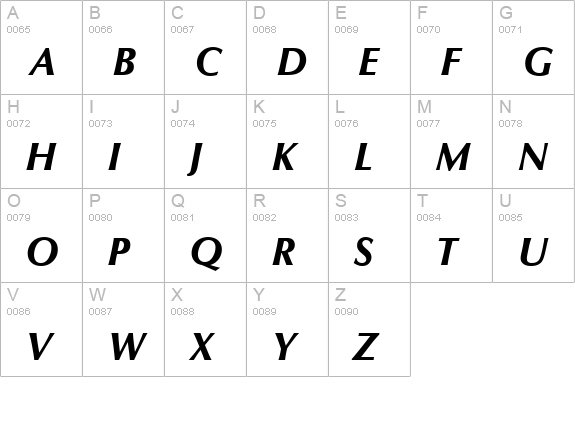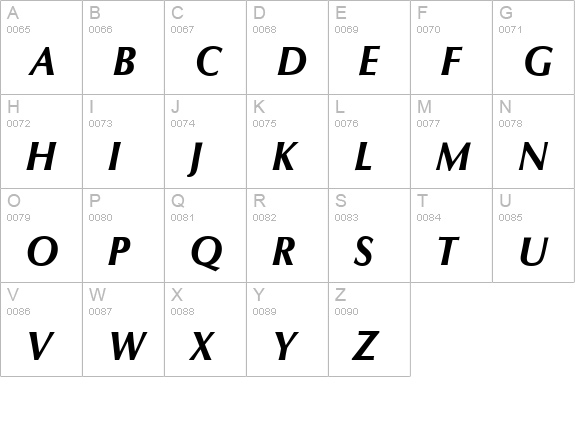
Omichron Bold Italic Font Details
Omichron Bold Italic is a strong, high-contrast, italic variant in the Omichron typeface family \xE2\x80\x94 well suited to headlines, attention-grabbing titles, and strong calls-to-action.